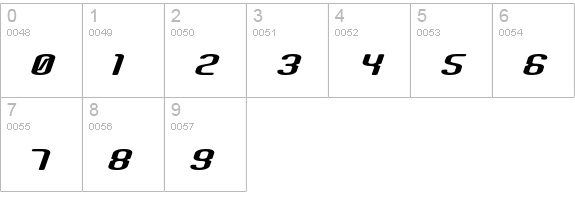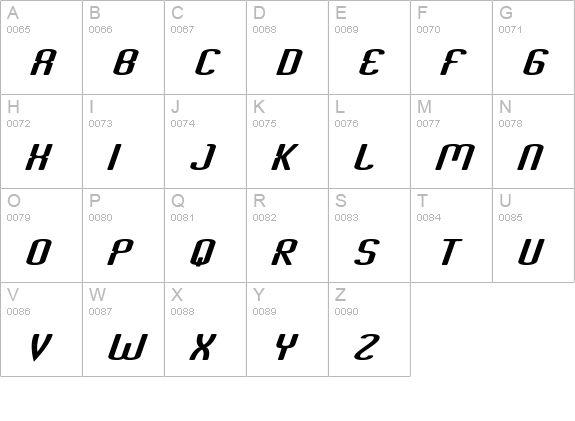
Ballistic Font Details
The Ballistic font is a powerful and dynamic typeface that encapsulates strength and boldness. Its sharp lines and sleek design make it perfect for conveying a sense of energy and impact in your projects. Whether you're designing a sports poster, a tech website, or a modern logo, Ballistic will bring a distinct edge to your typography. And the best part? Ballistic is available for free download at FontsMarket.com. This means you can easily add this cutting-edge font to your collection without any cost. Don't miss out on the opportunity to enhance your designs with the striking aesthetics of Ballistic font - download it today and take your creative projects to the next level!